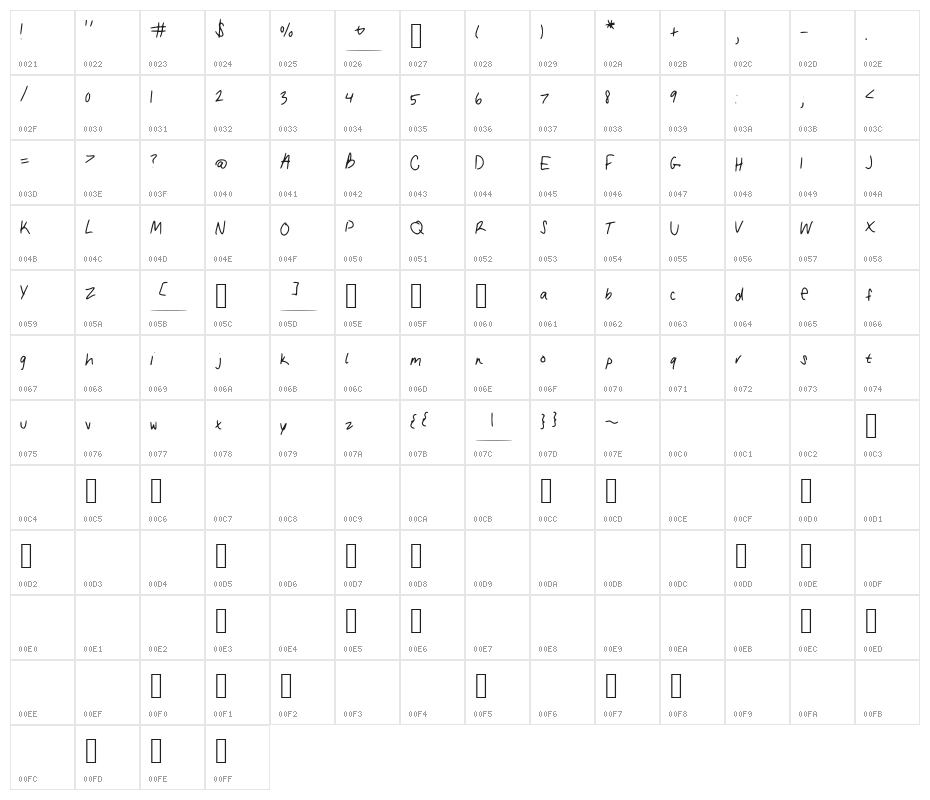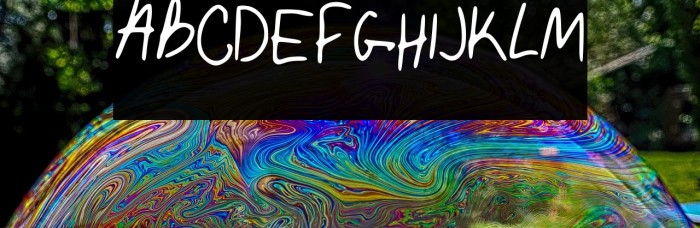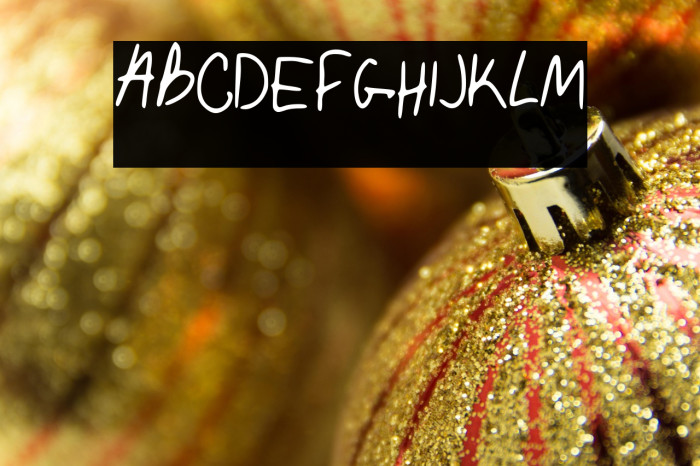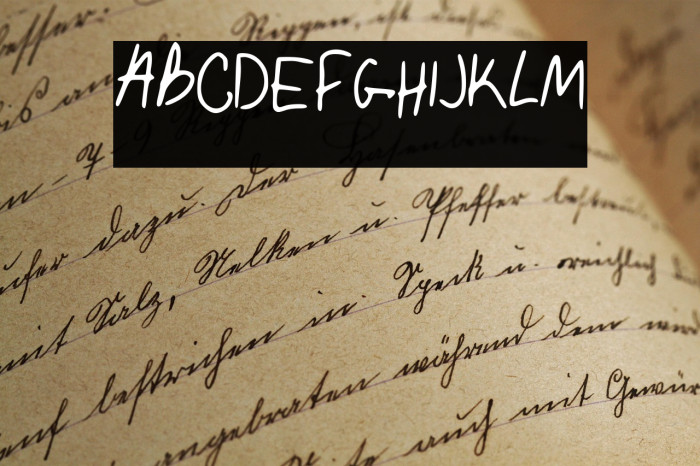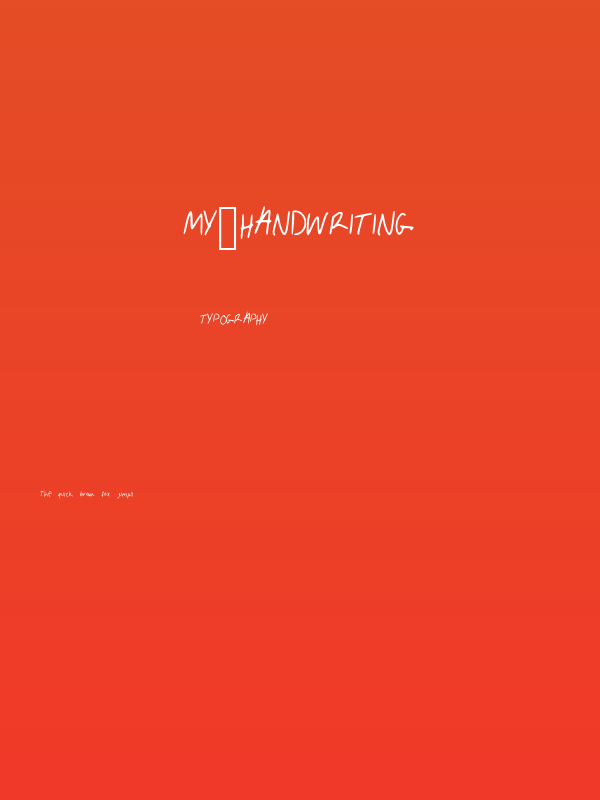
My_handwriting Font
My_handwriting Description
This font exhibits a casual, handwritten style with a playful and informal appearance. The characters are slightly slanted, giving them a dynamic and lively feel. The strokes are uneven, mimicking the natural flow of handwriting, which adds a personal touch. The uppercase letters are bold and prominent, while the lowercase letters maintain a consistent flow. Numbers and special characters are integrated seamlessly, maintaining the overall aesthetic. The font's charm lies in its imperfect, human-like quality, making it suitable for projects that require a personal or creative touch.
| Use Case | Logos, Greeting cards, Personal notes |
| Proposed Projects | Ideal for personal notes, creative projects, greeting cards, and informal branding. |